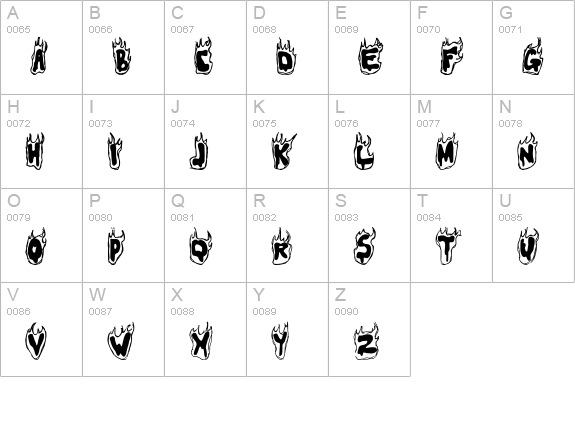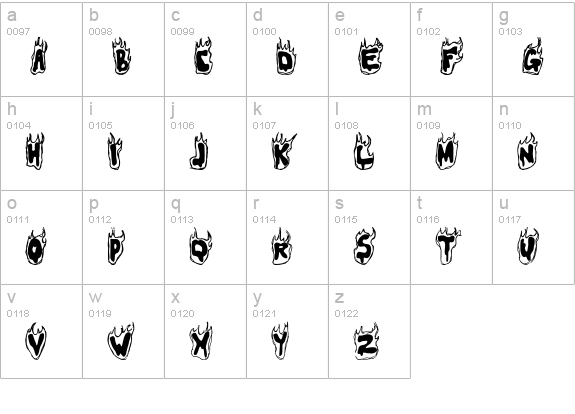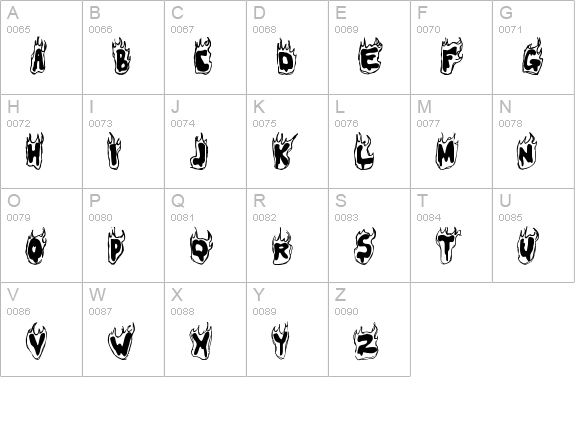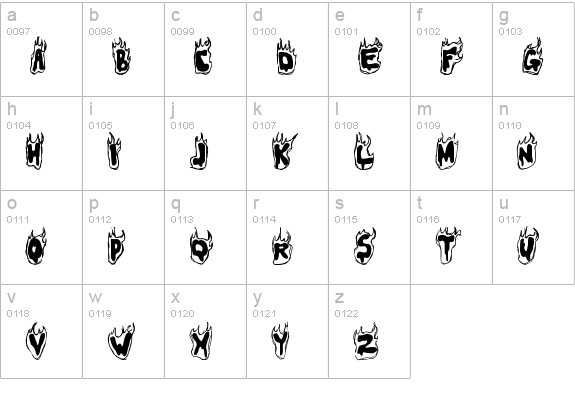
Flamer Font Details
Flamer font is a striking display typeface that exudes energy and intensity. With its bold strokes and fiery curves, Flamer is perfect for making a bold statement in your designs. Whether you're looking to add a touch of heat to your branding, posters, or social media graphics, Flamer font will definitely ignite the spark you need. The best part about Flamer font is that it is completely free to download. You can easily access this dynamic typeface at FontsMarket.com and start using it in your projects right away. Embrace the power and passion of Flamer font and set your designs ablaze with its captivating style.